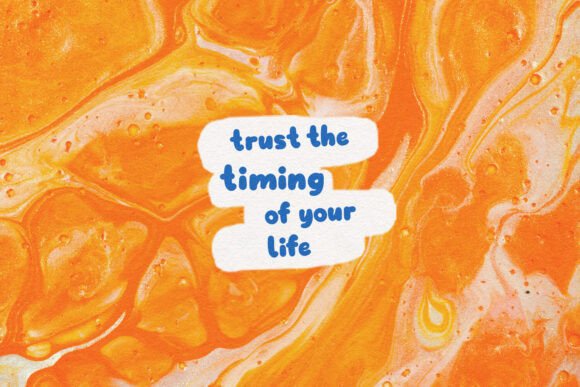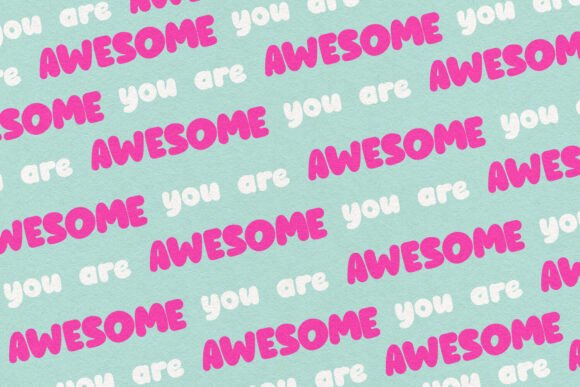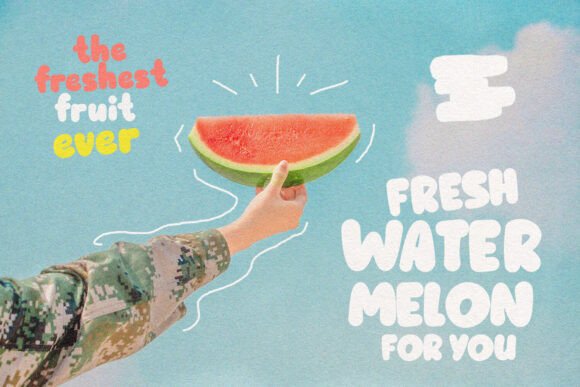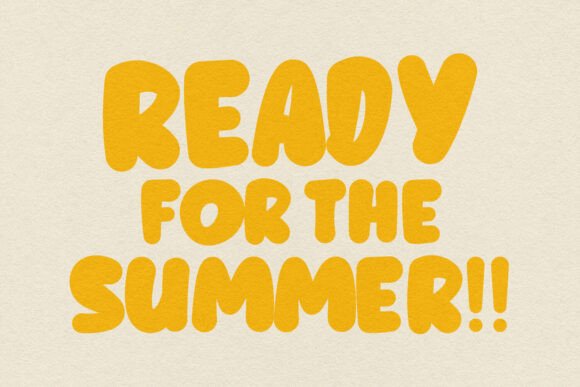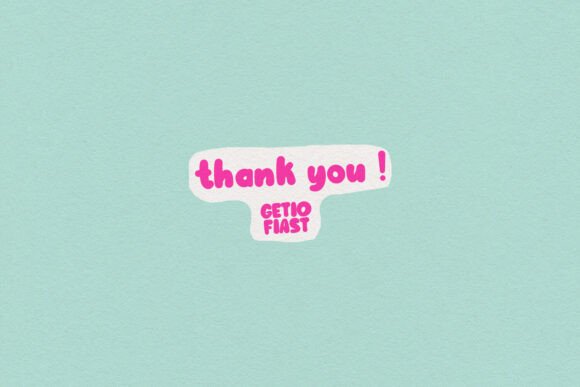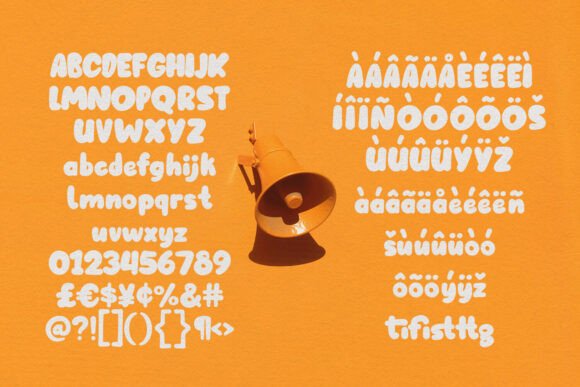
Getio Fiast Font: The Friendly Handwritten Handmade Font for Creative Minds
Getio Fiast is a friendly handwritten handmade font that has been masterfully designed to become a true favorite among designers, crafters, and creative enthusiasts. This beautiful font has the potential to bring each of your creative ideas to the highest level, making it an excellent addition to your font collection.
The Characteristics of Getio Fiast Font
Getio Fiast is a handwritten font that exudes warmth and personality. Its handmade feel makes it perfect for a variety of design projects, from crafting and scrapbooking to branding and advertising. The font’s friendly and approachable nature makes it ideal for designs that require a personal touch.
One of the standout features of Getio Fiast is its unique character set. Each letter has been carefully crafted to ensure that it is legible, yet distinctive and stylish. The font’s curves and lines are smooth and flowing, giving it a natural and effortless feel.
The Benefits of Using Getio Fiast Font
So, why should you choose Getio Fiast for your design projects? Here are just a few benefits of using this amazing font:
- Personal touch: Getio Fiast adds a personal touch to your designs, making them more relatable and engaging.
- Versatility: This font is perfect for a wide range of design projects, from digital designs to print materials.
- Easy to read: Despite its unique character set, Getio Fiast is easy to read, making it perfect for body text and headlines.
- Customizable: Getio Fiast can be easily customized to fit your design needs, from adjusting the font size to changing the color and texture.
How to Use Getio Fiast Font in Your Designs
Using Getio Fiast in your designs is easy. Here are a few tips to get you started:
- Pair it with other fonts: Getio Fiast pairs well with other fonts, making it easy to create visually appealing designs.
- Experiment with colors and textures: Getio Fiast looks great in a variety of colors and textures, so don’t be afraid to experiment and find the perfect combination for your design.
- Use it for headlines and body text: Getio Fiast is perfect for both headlines and body text, making it a versatile addition to your font collection.
Getio Fiast Font for Designers and Crafters
Getio Fiast is a must-have font for designers and crafters who want to add a personal touch to their designs. Whether you’re creating digital designs or print materials, this font is perfect for:
- Branding and advertising: Getio Fiast is perfect for creating unique and memorable brand identities.
- Crafting and scrapbooking: This font is a great addition to any crafter’s or scrapbooker’s font collection.
- Digital designs: Getio Fiast is perfect for creating digital designs, from social media graphics to blog posts.
Getio Fiast is a friendly handwritten handmade font that is sure to become a favorite among designers, crafters, and creative enthusiasts. Its unique character set, versatility, and ease of use make it a great addition to any font collection. Whether you’re creating digital designs or print materials, Getio Fiast is the perfect choice for adding a personal touch to your designs.